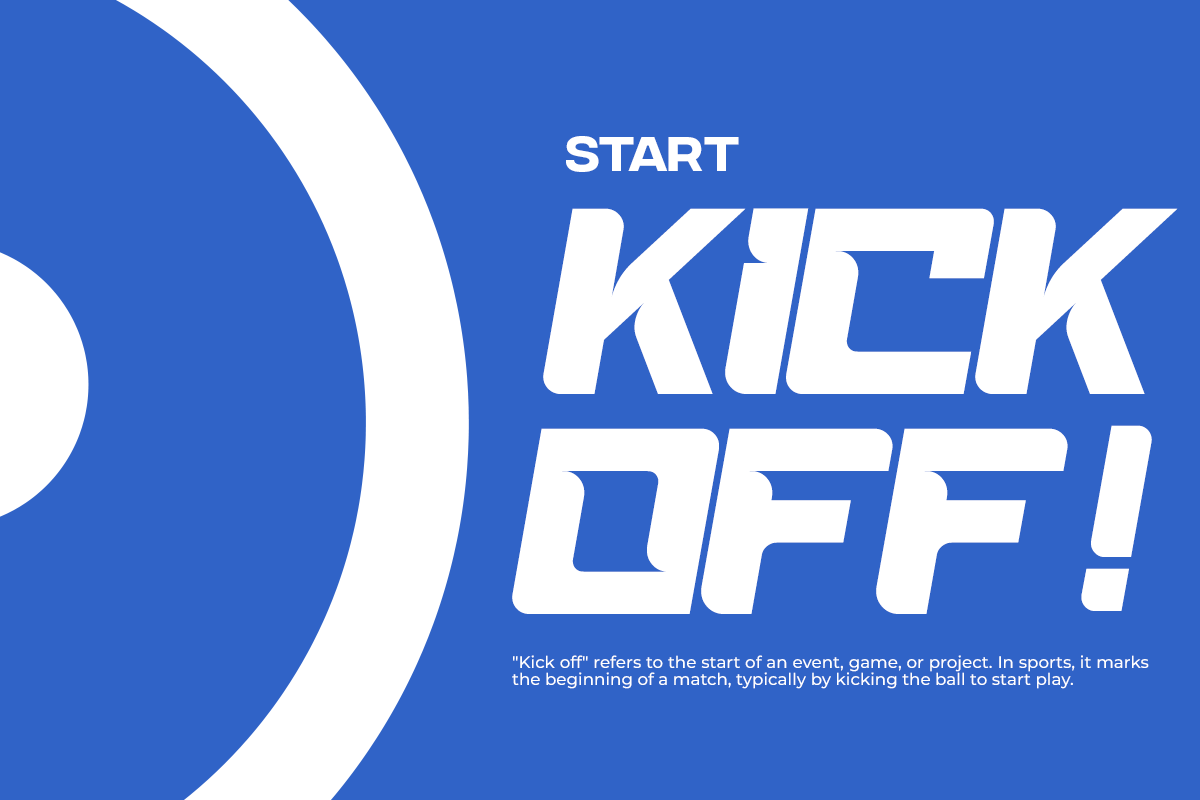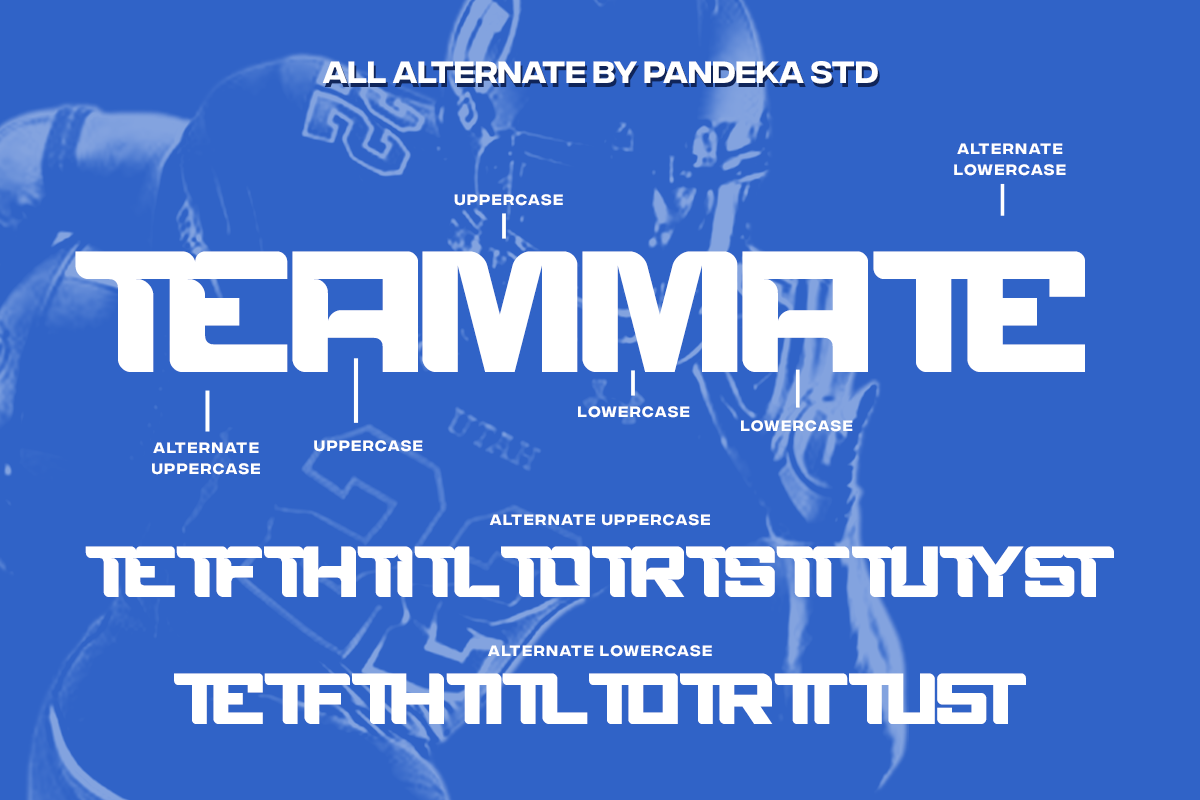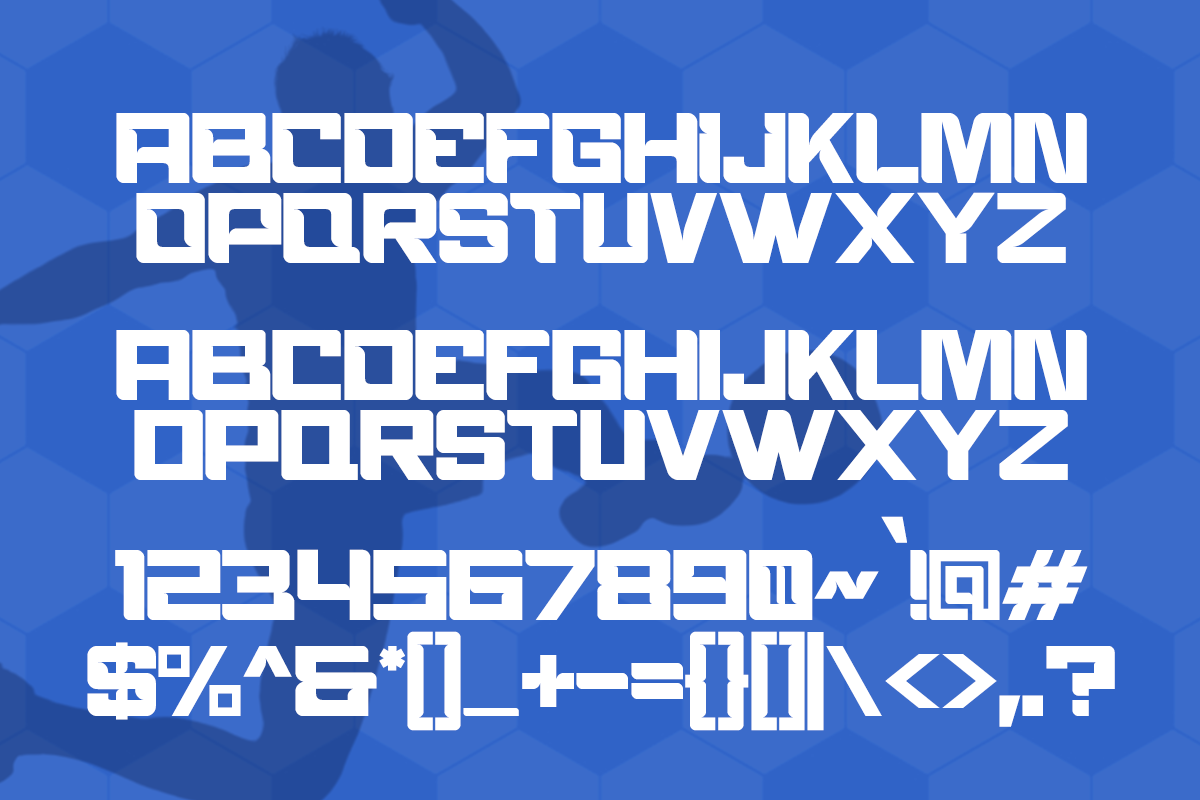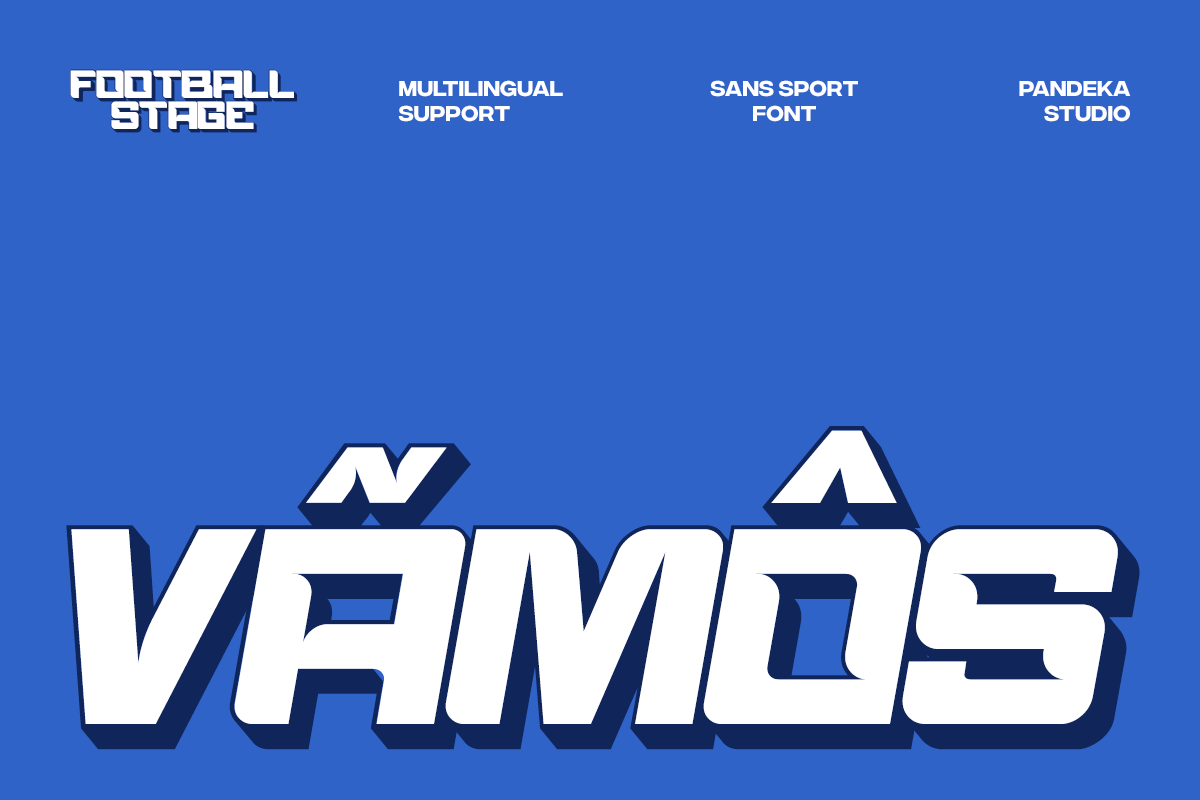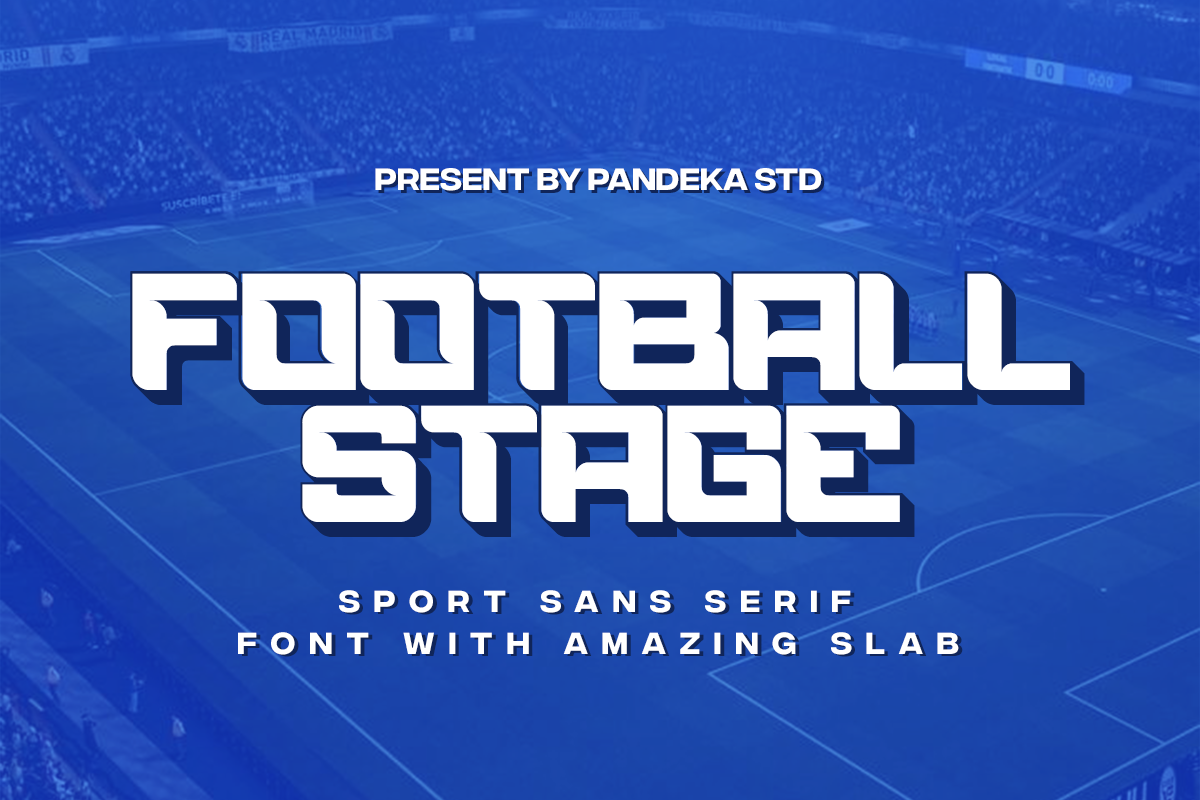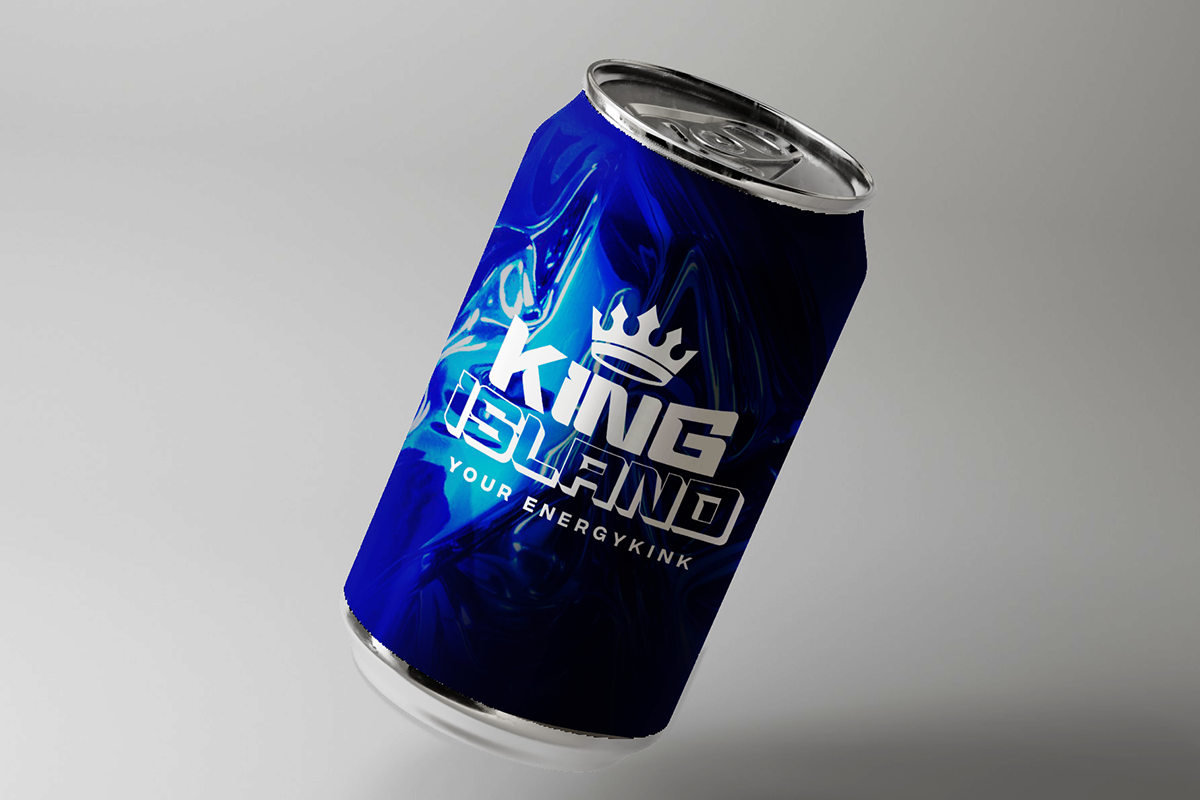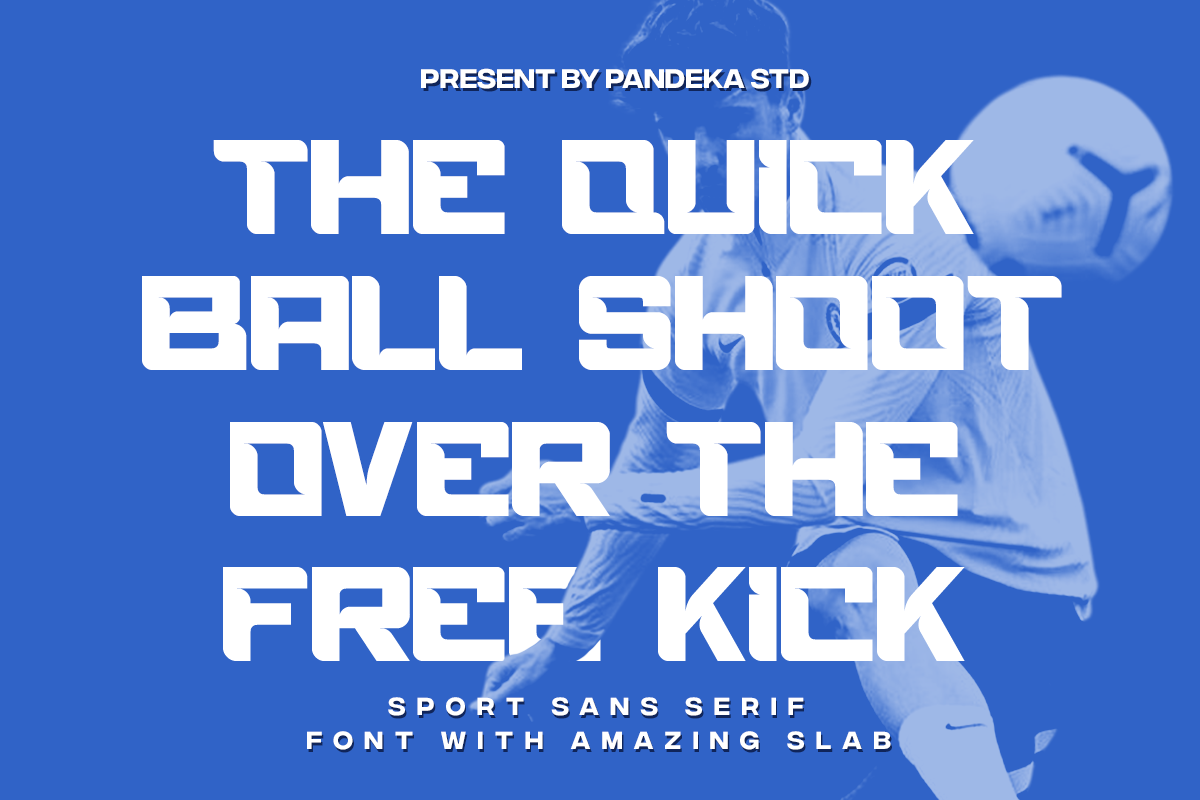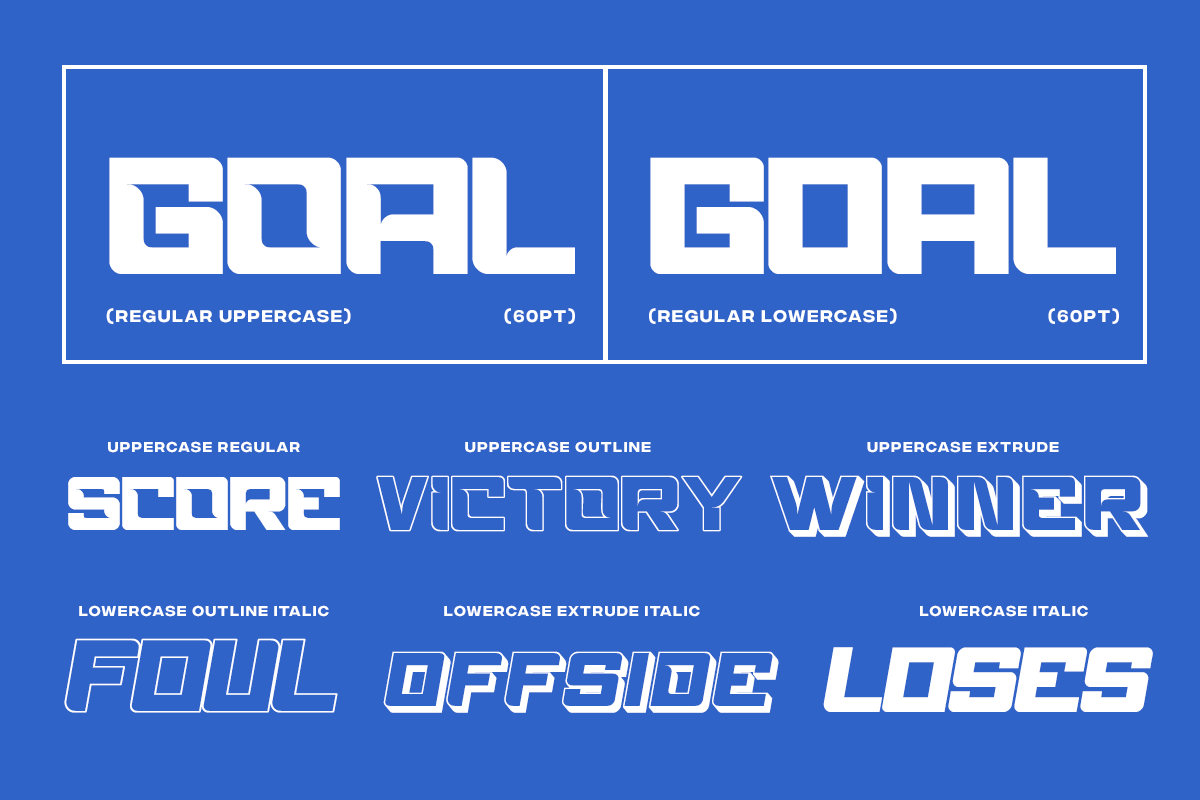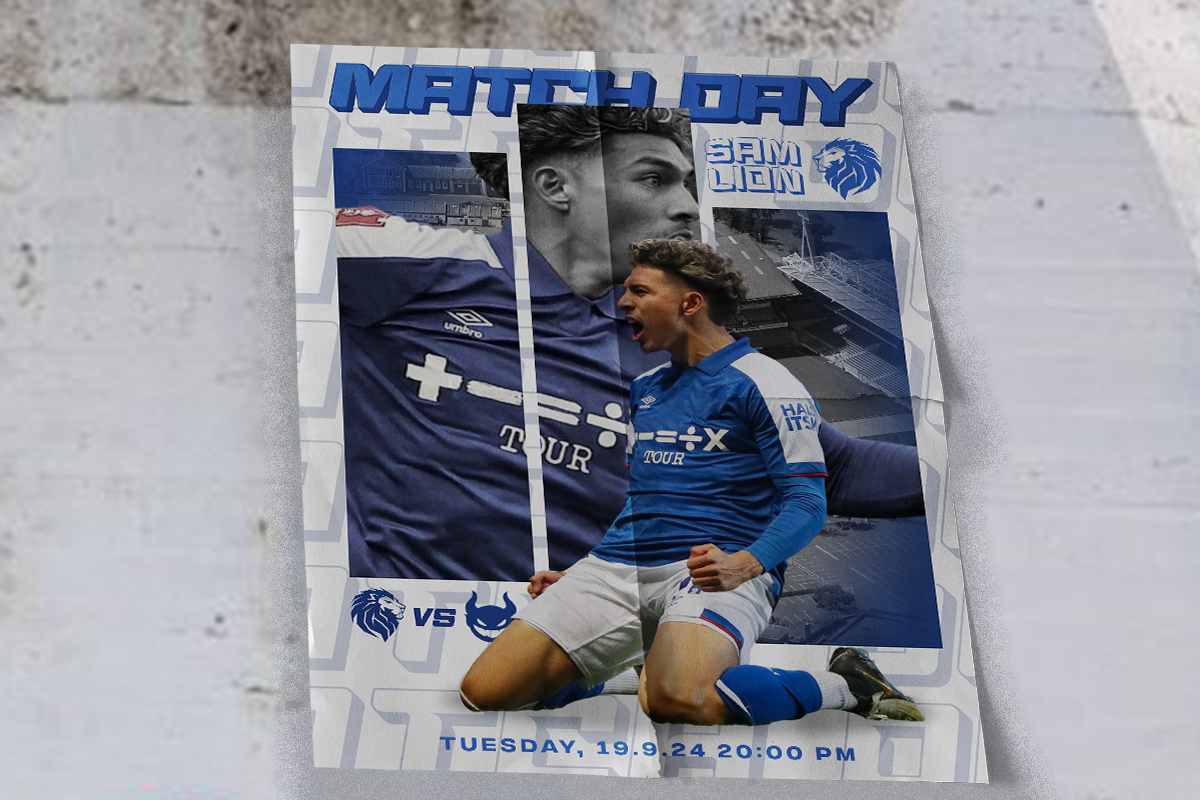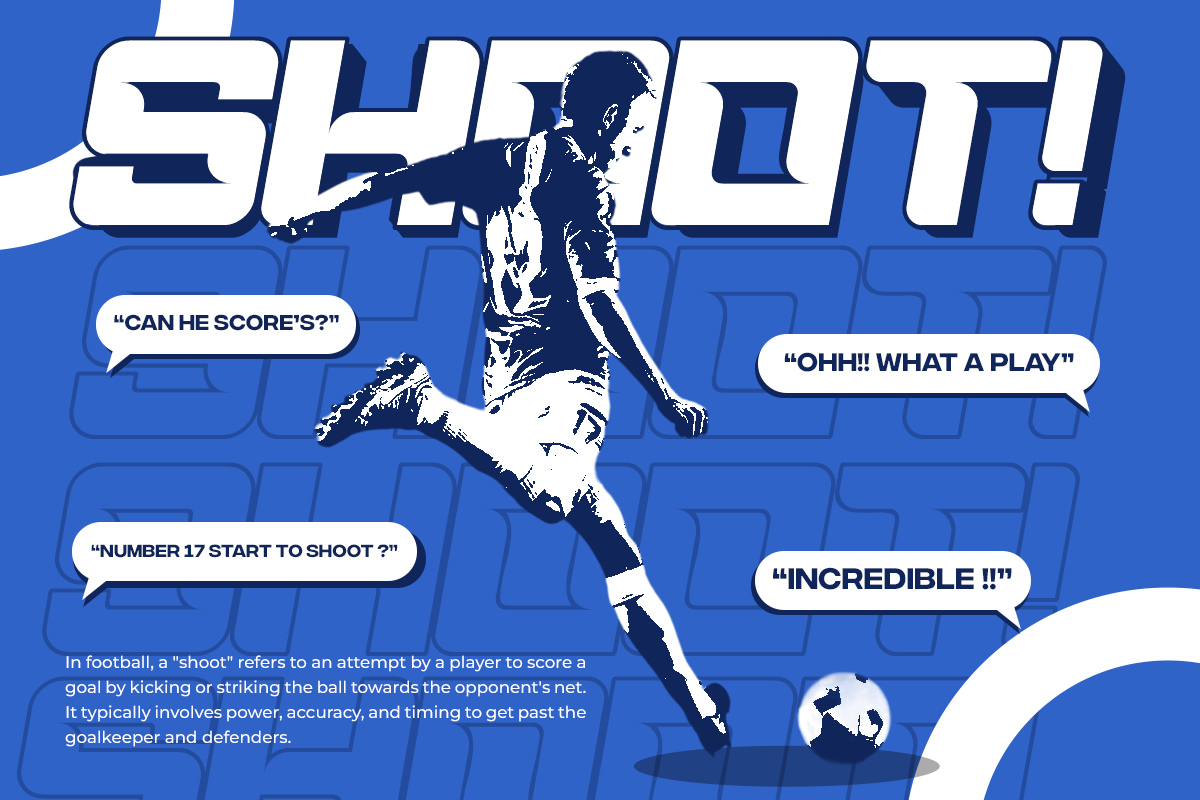
Football Stage - Football Font
Introducing Football Stage - The Ultimate Sports Font
Football Stage is a bold and dynamic font perfect for sports branding, team jerseys, posters, and merchandise. With 6 styles – Regular, Outline, Extrude, Italic, Italic Outline, and Italic Extrude – it adds energy and impact to any design. Complete with uppercase, lowercase, numbers, and special characters, Football Stage ensures your projects stand out with athletic power and style.
- 6 Style: Regular, Extrude, Outline, Italuc, Extrude Italic, Outline Italic
- Unique letterforms